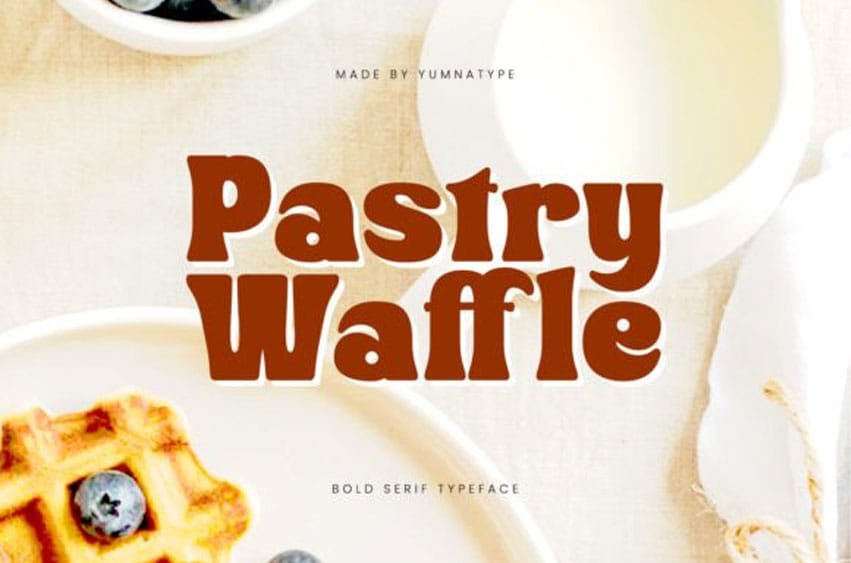
Pastry Waffle Font
Pastry Waffle Font is a bold and contemporary serif font that commands attention with its strong presence and modern style. With its bold weight and visible letter contrast, this font is perfect for projects seeking a striking and impactful typographic statement.
Each letter in Pastry Waffle is meticulously crafted with clean lines and precise serifs, exuding a sense of confidence and sophistication.